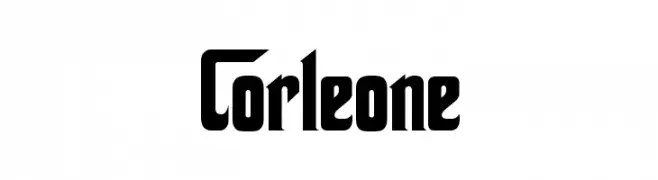
( Fonts by Typography in Decay )
A sketch-inspired font with geometric, hand-drawn elements and a technical aesthetic.
( Fonts by or from www.graffitifonts.net )
A bold, jagged font with a torn paper effect, perfect for dramatic designs.
( Fonts by www.fontmesa.com )
A bold, dramatic font with thick, angular serifs and high contrast.
( Fonts by Utopiafonts )
A jagged, gothic-style font with thorn-like accents, ideal for dramatic themes.
( Fonts by Omega Font Labs )
A bold, gothic-inspired font with sharp angles and thick strokes.